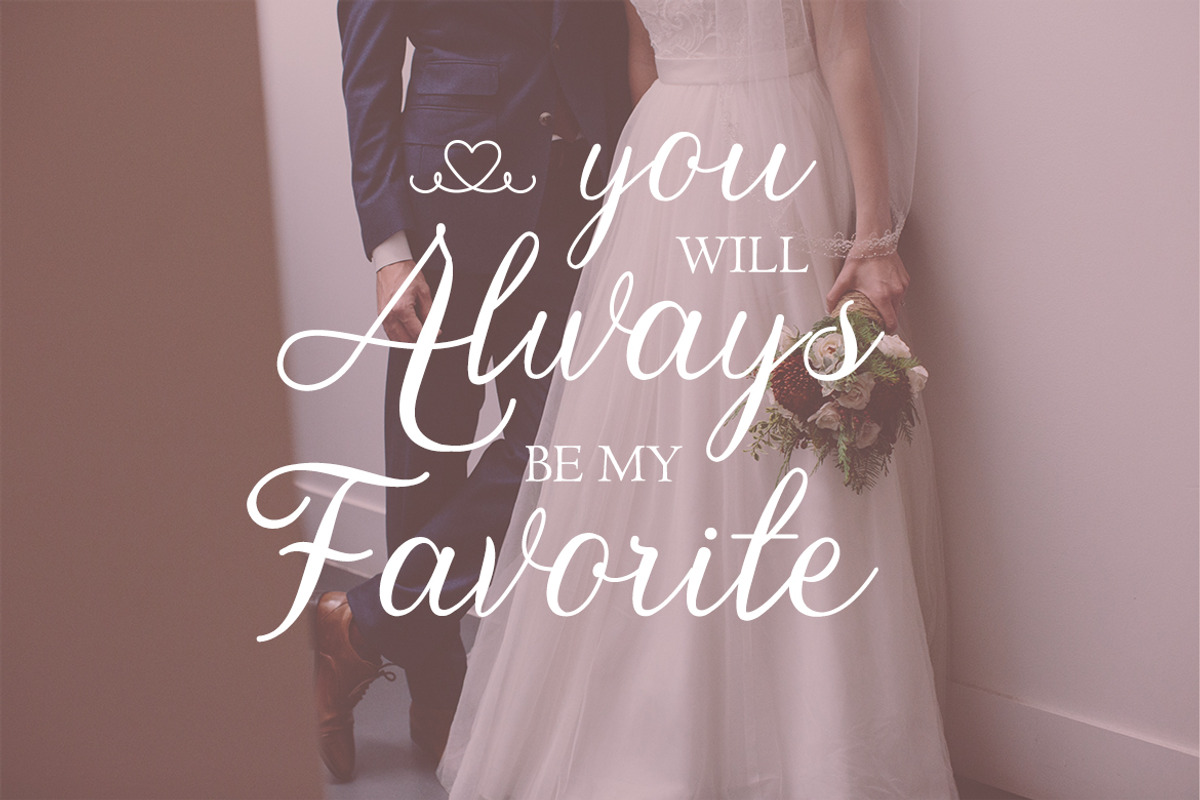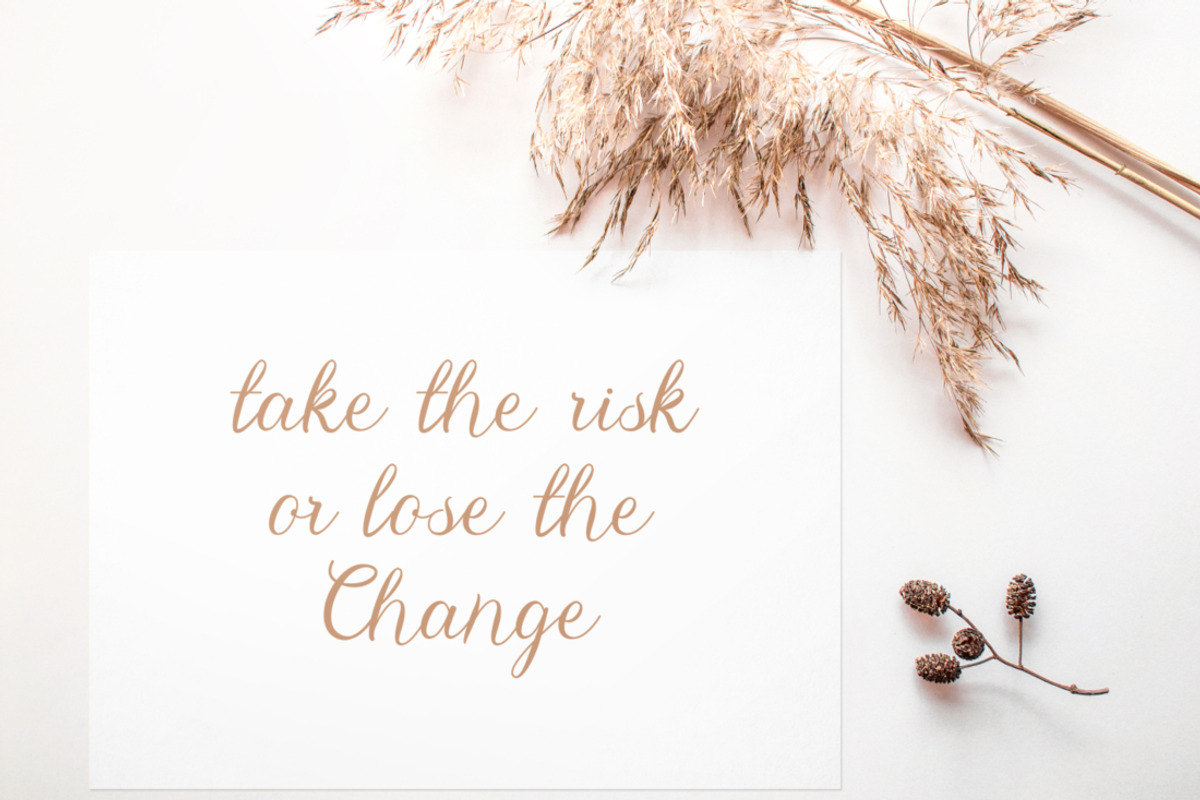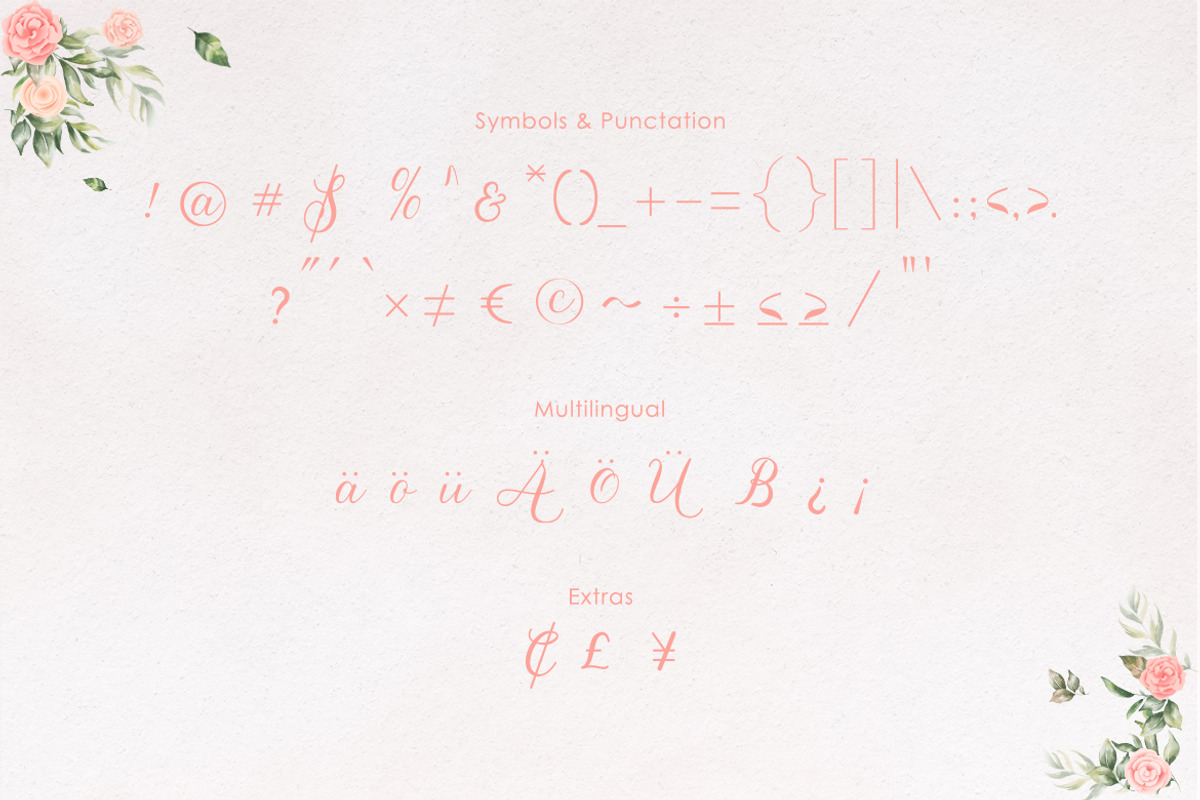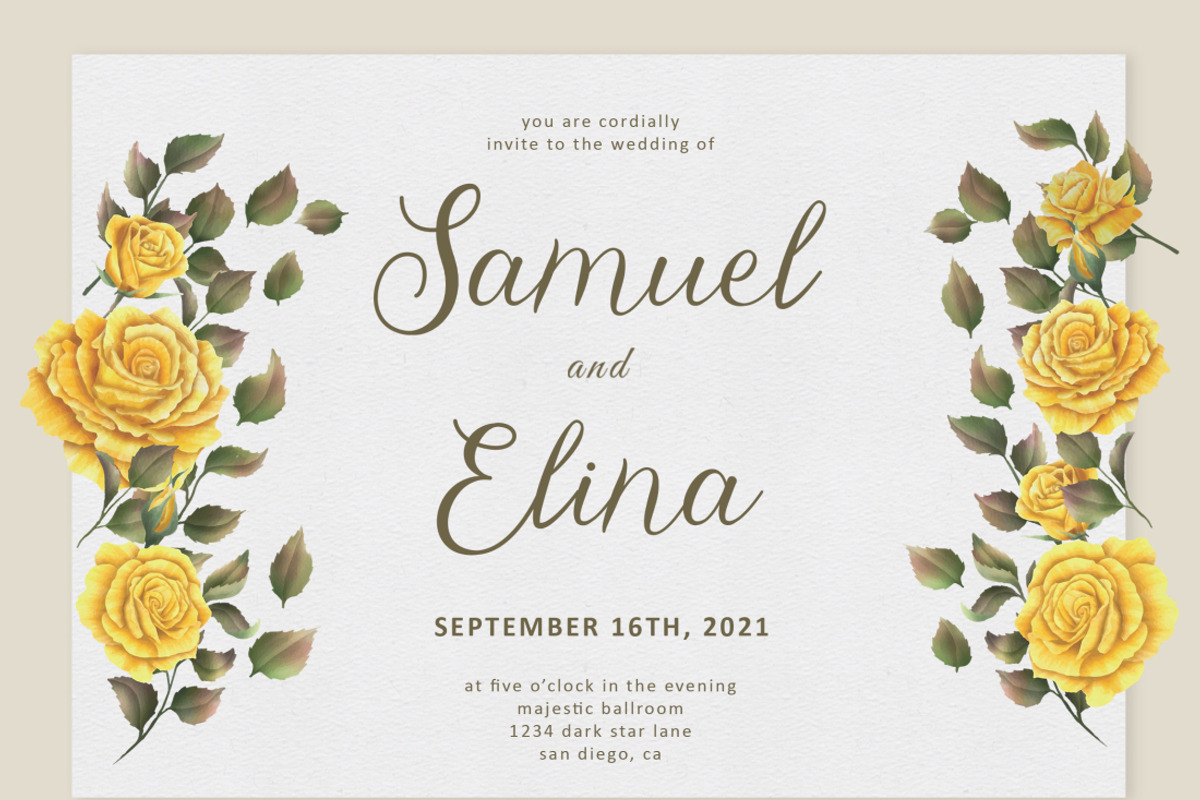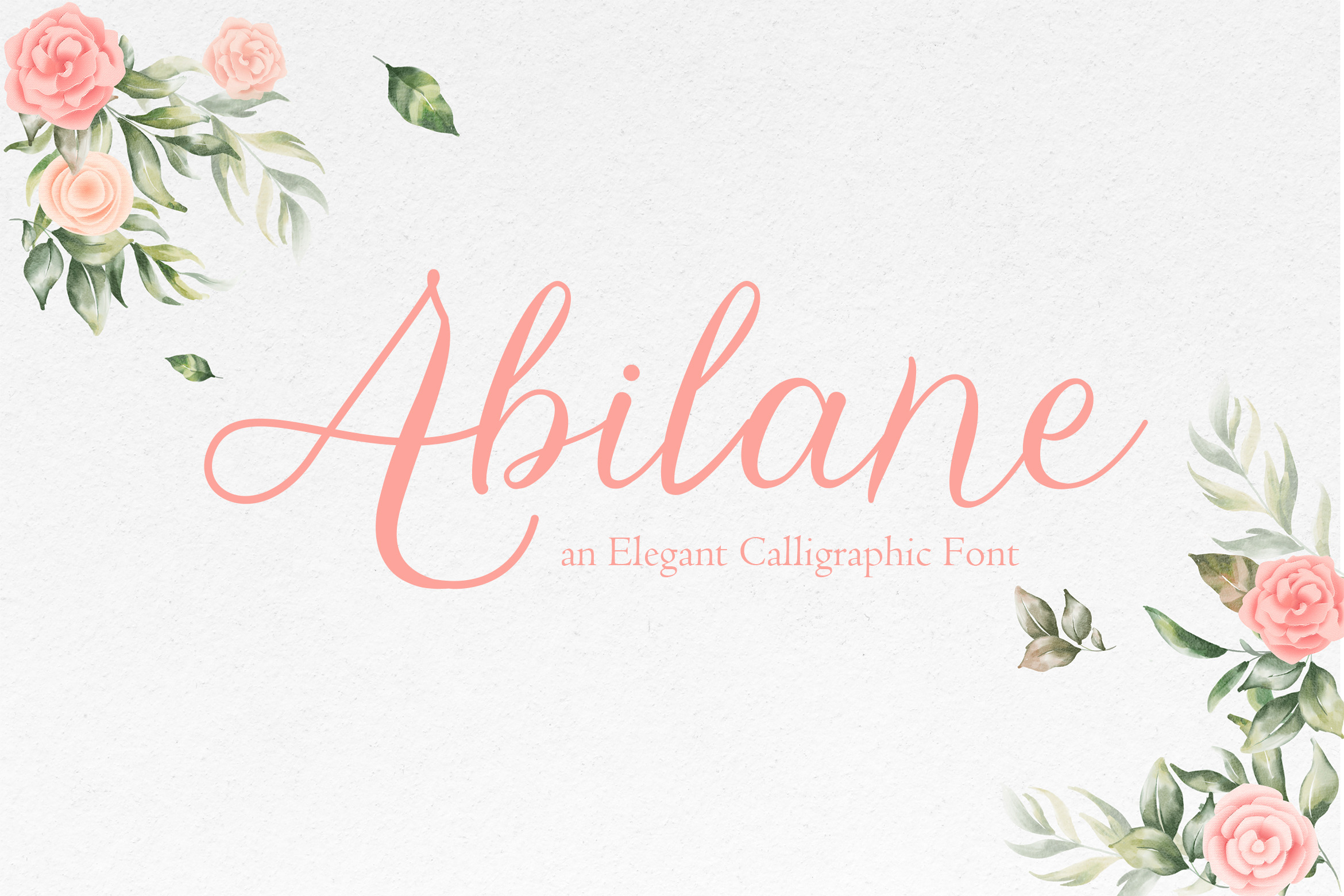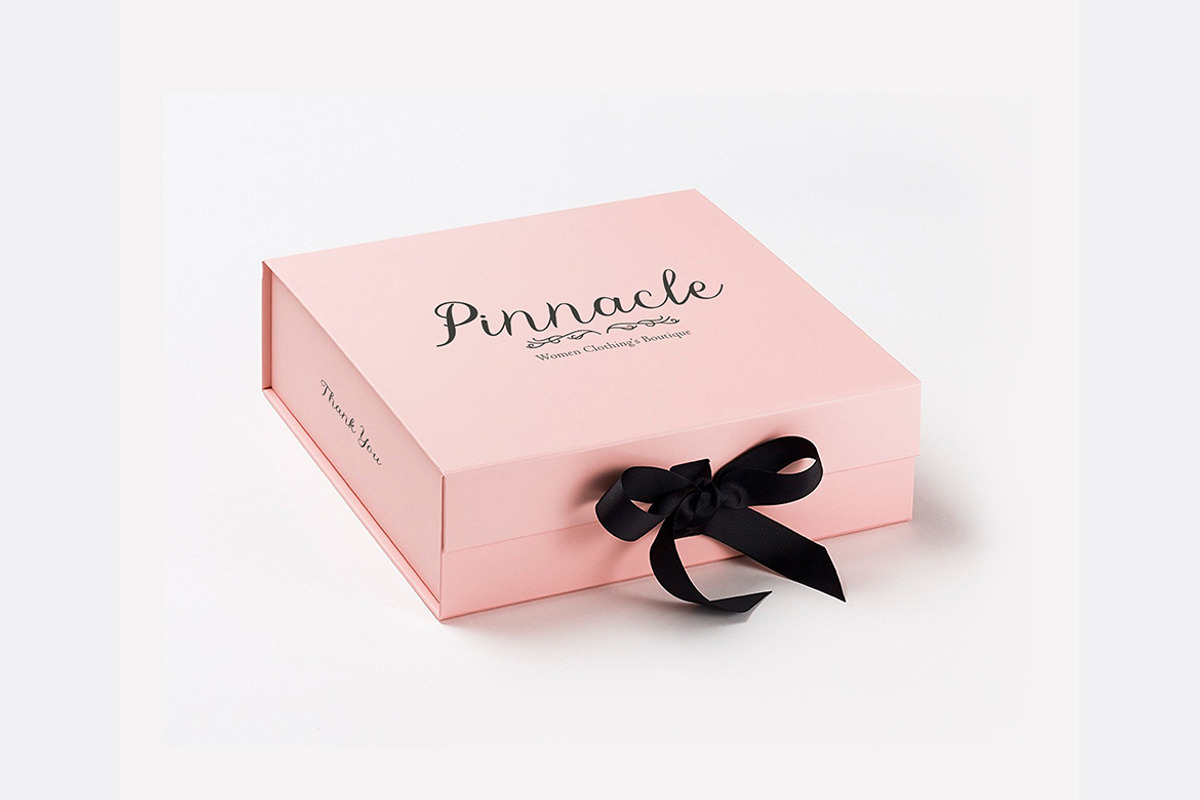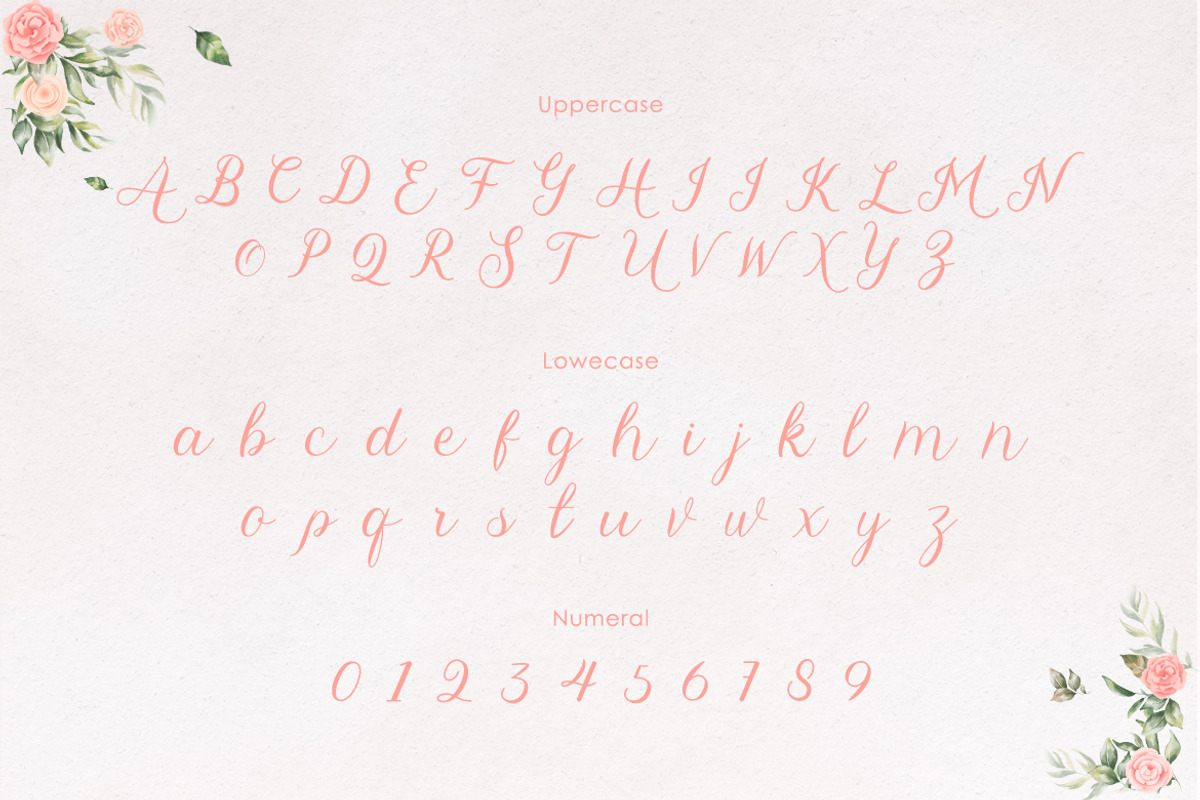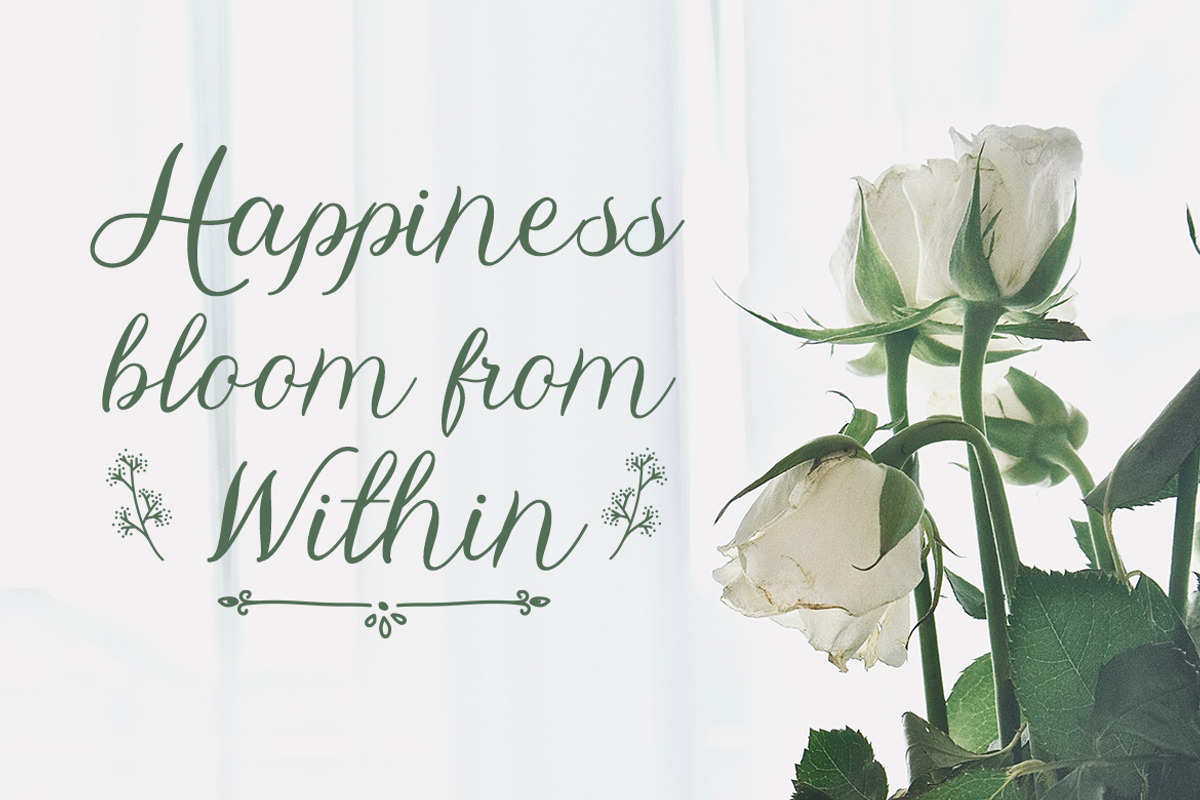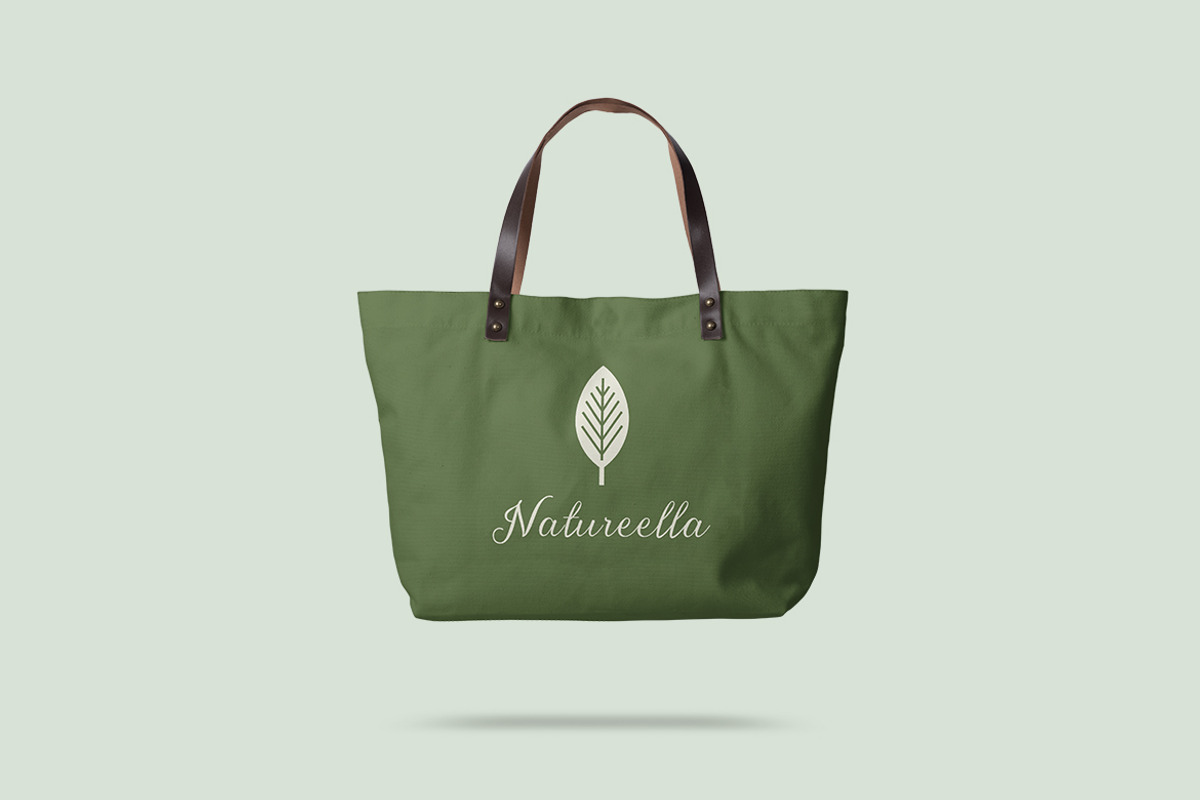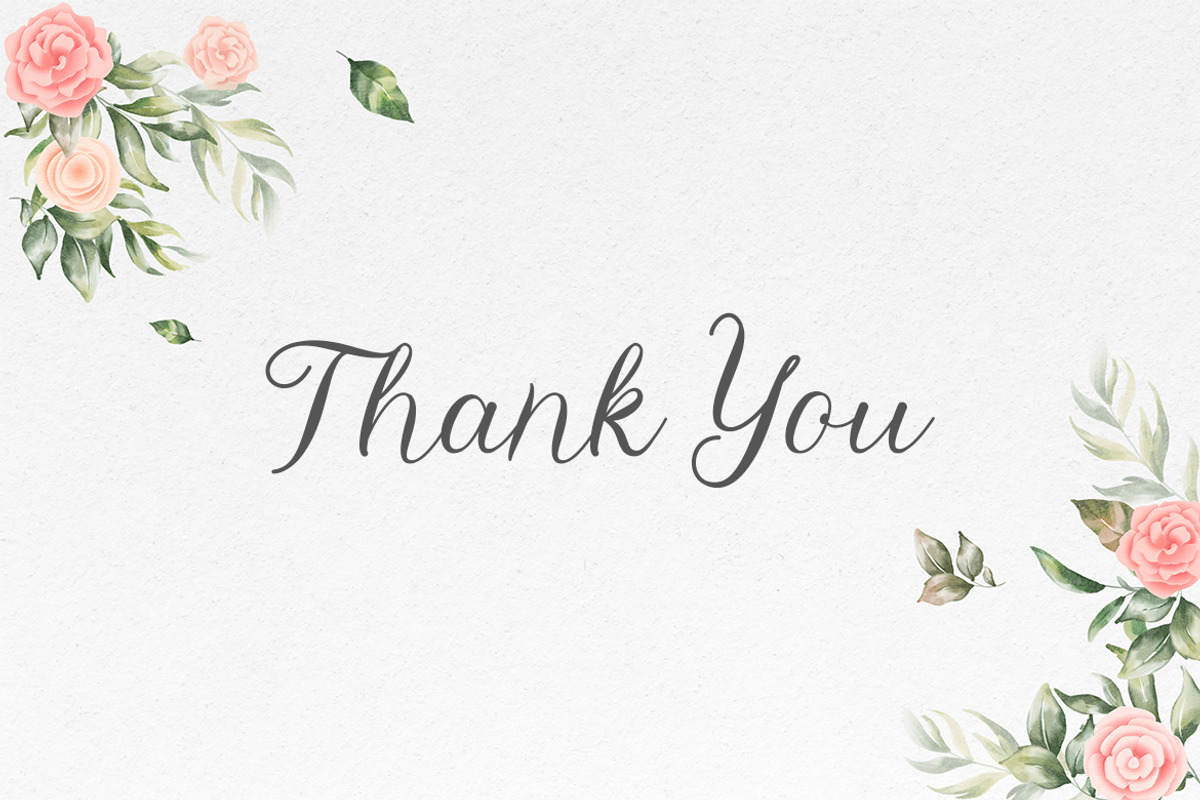
Abilane - Elegant Calligraphic Font
Abilane is an lovely and elegant calligraphic font. It is the best choice for creating eye catching logos, branding and quotes. Every letter has a unique and elegant beautiful touch, which will make your design come alive!